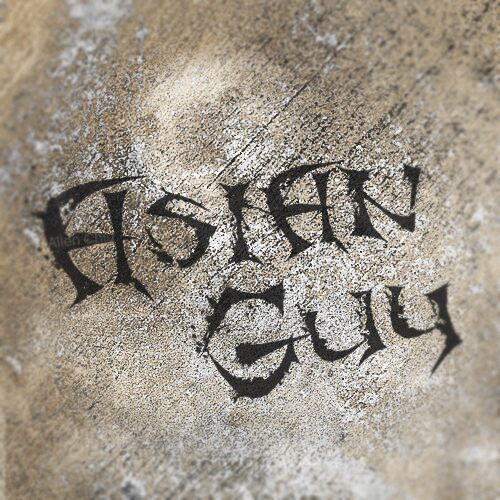
Asian Guy is a free distressed fantasy display font with jagged, thorn-like serifs and an aggressively uneven outline. Broad, angular letterforms are cut through by sharp interior strokes, giving the text a hand-hewn, almost weapon-like construction. Scattered splinters and ink flecks deepen its rough, unruly finish.
A dark fantasy game title is the clearest use, though the same scratched forms also suit horror posters, metal merchandise, and haunted-event graphics. Its hooked points and stray marks can echo illustrated blades, brambles, cracked wood, or occult ornament, letting the lettering become part of the artwork rather than a neutral caption.